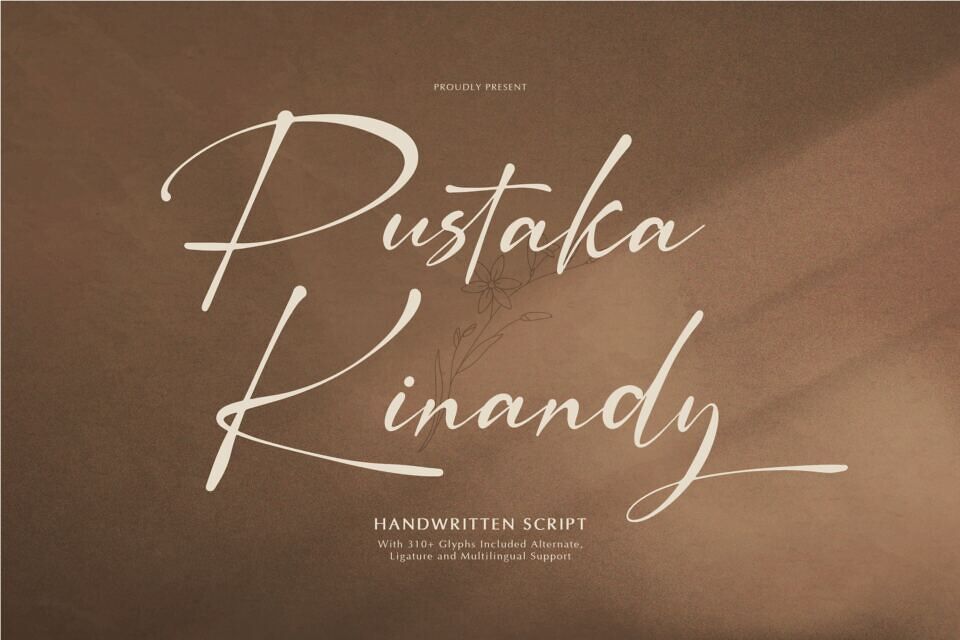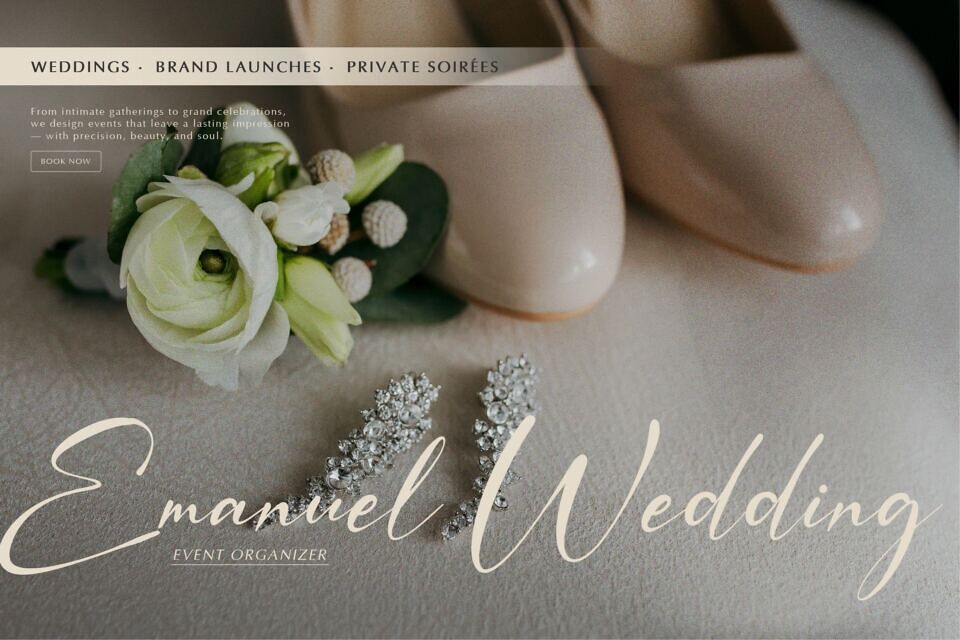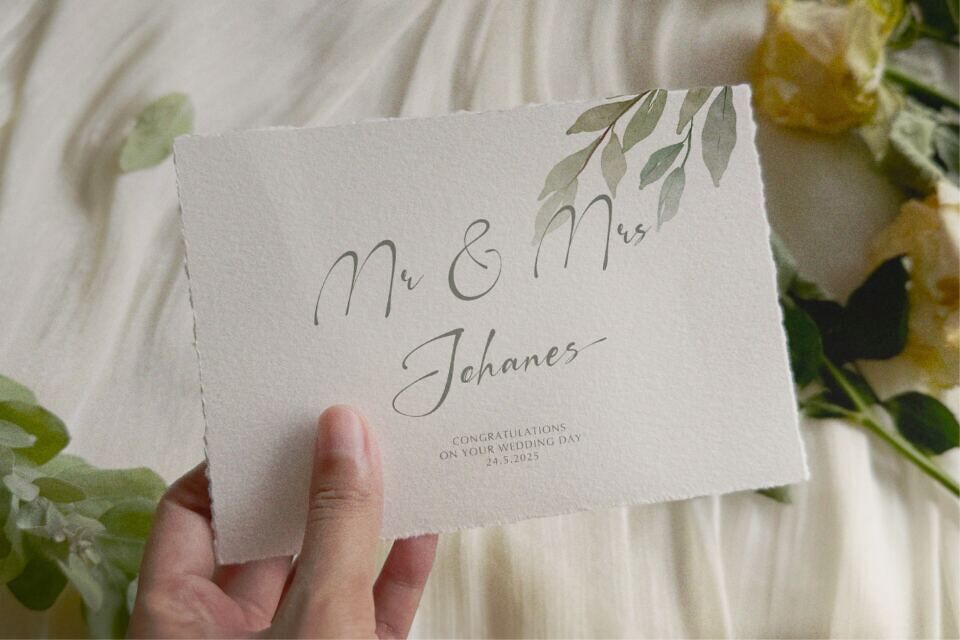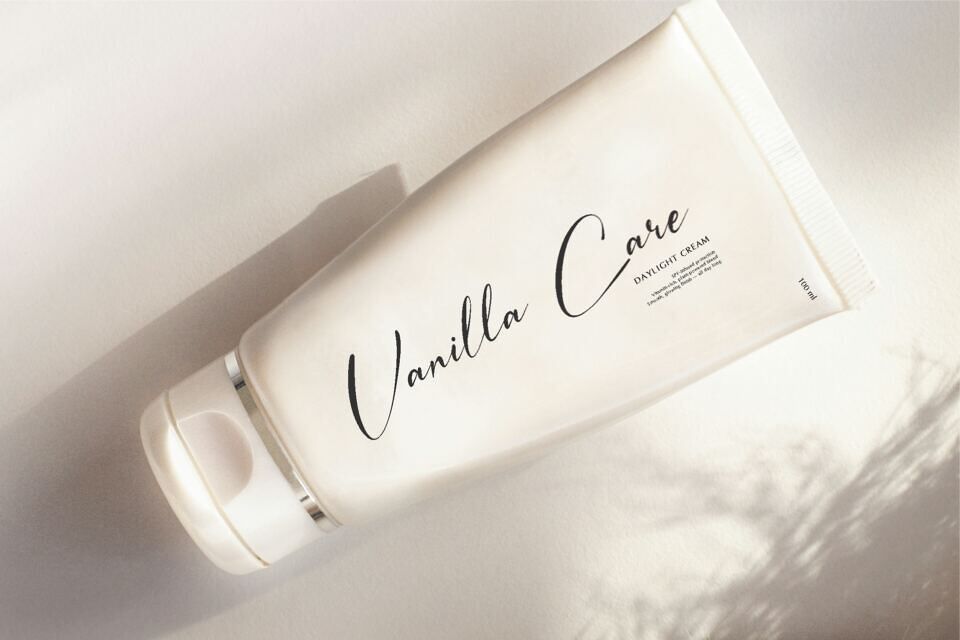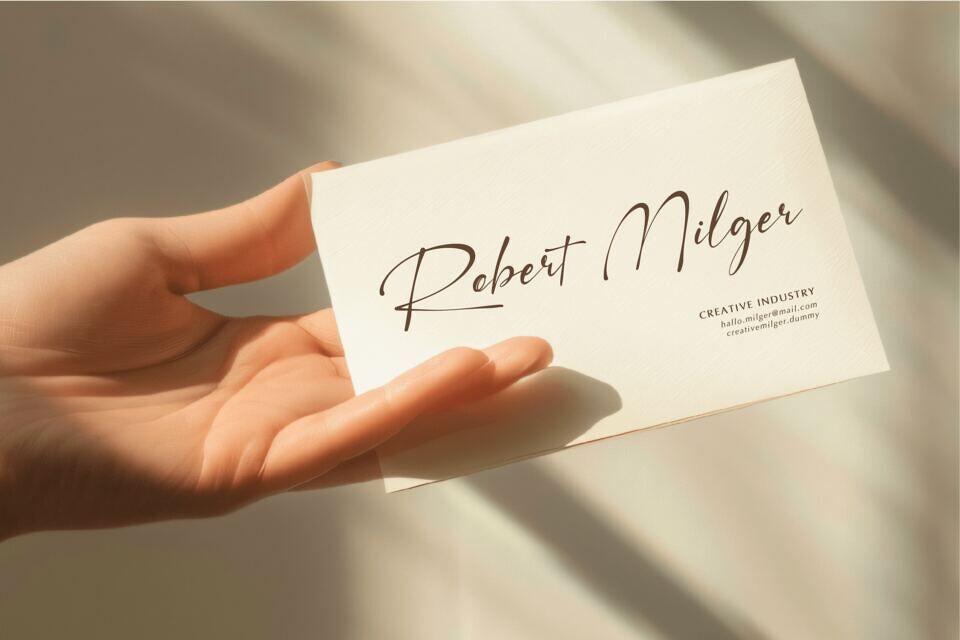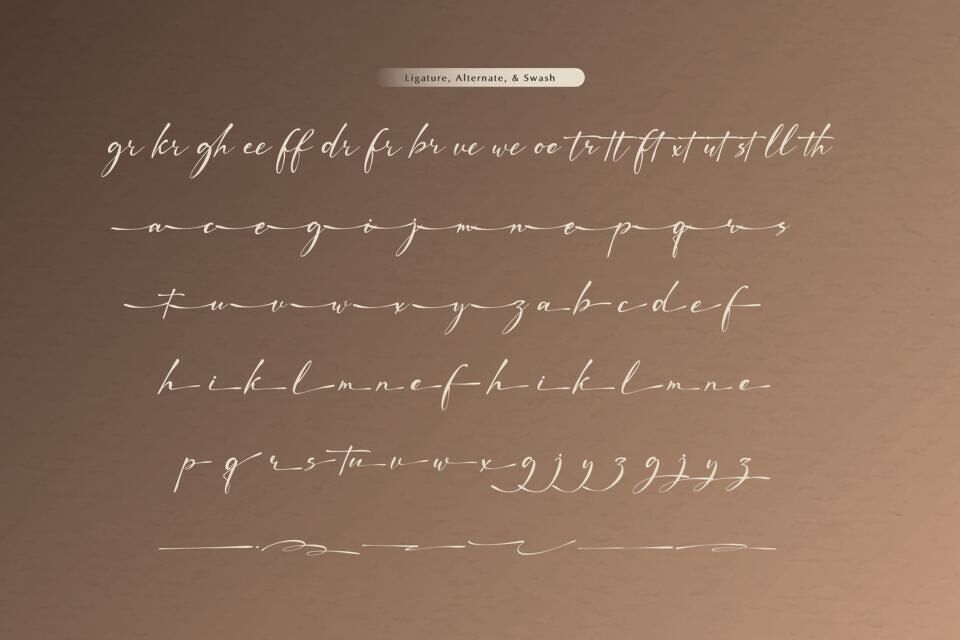
Pustaka Kinandy is a Handwritten Script from Gracetypestudio, suitable for any projects such as: logos, branding projects, homeware designs, product packaging, mugs, quotes, posters, shopping bags, t-shirts, book covers, name card, invitation cards, greeting cards, label, photography, watermark, special events, and all your other lovely projects that need a Handwritten Script taste.